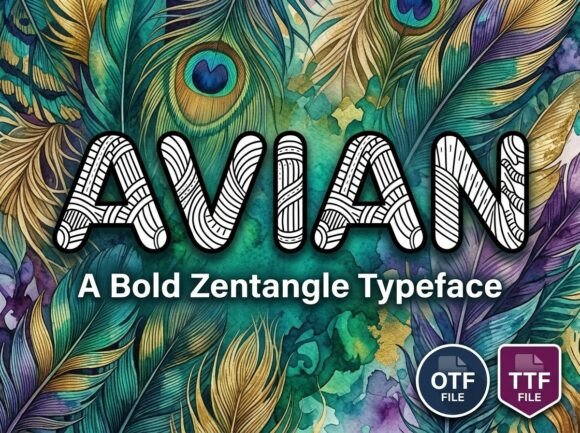
Unlocking Creative Heights with Avian Font
Have you ever been in the midst of a design project, pouring your heart and soul into it, only to hit a creative roadblock when it comes to choosing the perfect font? I certainly have. It was during one of those moments, working on a branding project for a boutique craft shop, that I stumbled upon Avian Font. This detailed display typeface has been a game-changer for me, and I’m excited to share my experience with you.
The Avian Advantage
Avian Font is more than just a collection of letters; it’s an artistic statement. Characterized by bold, rounded letterforms and an internal texture of rhythmic, hand-drawn “zentangle” patterns, Avian bridges the gap between mindful illustration and modern artisanal branding. Its heavy structural weight and artistic personality make it the perfect choice for projects that demand a unique and creative touch.
Honest Review: The Good, the Bad, and the Quirky
- ✨ Unique and intricate design that’s sure to turn heads
- ✅ High versatility, suitable for various creative projects
- 💡 Excellent for branding, titles, and social media headers
- 🎨 Perfect for adult coloring book titles and craft-related designs
- 🤔 May not be suitable for body text due to its bold and decorative nature
- ⚠️ Some users may find the zentangle patterns a bit distracting or overwhelming
The Story Behind Avian Font
Avian Font was designed with the intention of capturing a “complex-and-creative” soul. The designer aimed to create a font that not only stands out due to its bold and rounded letterforms but also tells a story through its intricate, hand-drawn zentangle patterns. Inspired by the mindful and meditative nature of zentangle art, Avian brings a unique artistic personality to the world of typography.
Q: What makes Avian Font unique?
A: Avian Font is unique due to its bold, rounded letterforms and the internal texture of rhythmic, hand-drawn “zentangle” patterns.
Q: Is Avian Font suitable for body text?
A: Due to its bold and decorative nature, Avian Font is better suited for titles, headers, and short text rather than body text.
Q: Does Avian Font support OpenType features?
A: Yes, Avian Font supports OpenType features, including stylistic alternates and glyphs, allowing for a high level of customization and creativity.